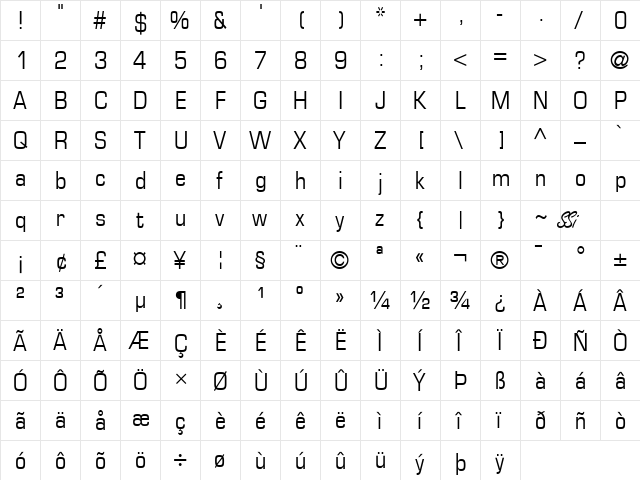
Palindrome Condensed SSi Condensed
Design Context for Palindrome Condensed SSi Typeface
Palindrome Condensed SSi takes a measured approach to typography — its balanced proportions and neutral character make it a reliable workhorse for both digital and print work. The condensed width makes it efficient for tight spaces without sacrificing legibility.
Pro Tip: Use Palindrome Condensed SSi in both headline and body roles to test its range before committing to a single application.